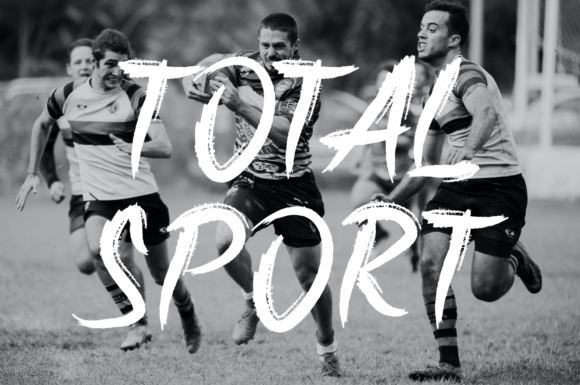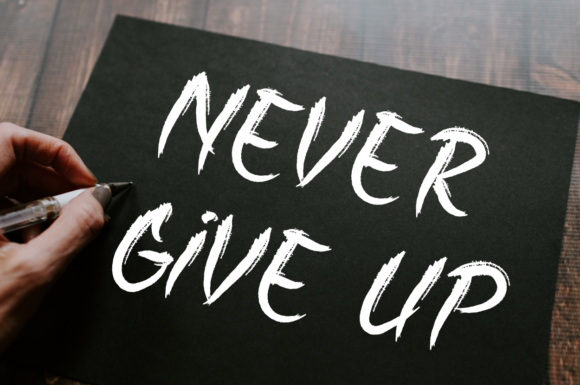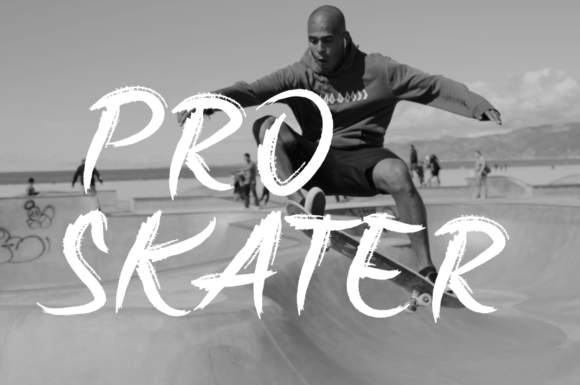
Introducing Fight Font: The Perfect Choice for Crafty Designs
Are you a designer or crafter looking for a unique and original font to elevate your creative projects? Look no further than Fight Font, a simple yet striking brushed display font that’s perfect for a wide range of applications. In this article, we’ll take a closer look at Fight Font, its features, and how you can use it to take your designs to the next level.
What is Fight Font?
Fight Font is a carefully crafted brushed display font that’s designed to add a touch of personality to your designs. With its original look and feel, this font is perfect for crafty ideas, from letterheads and titles to stationery and more. Its simplicity and elegance make it an excellent choice for designers and crafters who want to add a unique touch to their work.
Key Features of Fight Font
- Original Look: Fight Font boasts an original look that sets it apart from other fonts. Its brushed texture gives it a distinctive feel that’s both modern and vintage.
- Simple yet Effective: This font is incredibly simple to read and understand, making it perfect for use in a variety of design applications.
- Highly Versatile: Fight Font can be used for a wide range of projects, from letterheads and titles to stationery and more.
- Easily Customizable: With Fight Font, you can easily customize the font to suit your design needs. Whether you want to change the color, size, or style, this font is easy to work with.
Use Cases for Fight Font
Fight Font is an incredibly versatile font that can be used in a variety of design applications. Here are some use cases to get you started:
- Letterheads and Titles: Add a touch of personality to your letterheads and titles with Fight Font. Its brushed texture gives it a unique feel that’s perfect for making a statement.
- Stationery: Whether you’re designing greeting cards, invitations, or other stationery items, Fight Font is an excellent choice. Its simplicity and elegance make it perfect for a wide range of designs.
- Logos and Branding: Fight Font can also be used to create unique logos and branding materials. Its original look and feel make it perfect for businesses that want to stand out from the crowd.
Tips for Using Fight Font
Here are some tips for using Fight Font in your designs:
- Experiment with Colors: Fight Font looks great in a variety of colors. Experiment with different colors to find the one that works best for your design.
- Play with Sizes: This font looks great in a range of sizes. Experiment with different sizes to find the one that works best for your design.
- Combine with Other Fonts: Fight Font can be paired with other fonts to create a unique look. Experiment with different font combinations to find the one that works best for your design.
Fight Font is a simple yet striking brushed display font that’s perfect for crafty designs. With its original look and feel, this font is perfect for a wide range of applications, from letterheads and titles to stationery and more. Whether you’re a designer or crafter, Fight Font is an excellent choice for anyone looking to add a unique touch to their work. So why wait? Download Fight Font today and start creating stunning designs that stand out from the crowd!